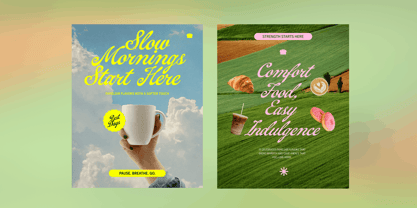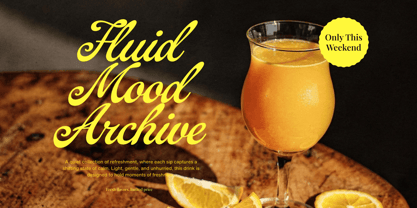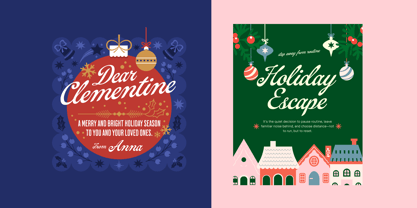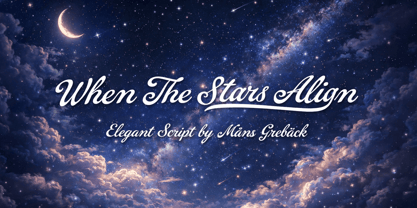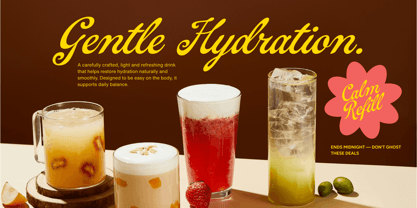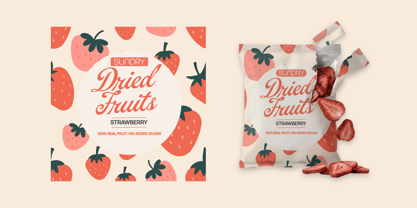
When The Stars Align
by Mans Greback
The When The Stars Align Font Family was designed by Måns Grebäck and published by Mans Greback. When The Stars Align contains 4 styles and family package options. More about this family
When The Stars Align is an elegant script with a calm, luminous presence. Its letterforms flow smoothly, with gentle contrast and carefully shaped curves that give the text a sense of balance and intention. The rhythm is unhurried, allowing words to breathe while still feeling connected and deliberate. Subtle swashes and soft joins add character without drawing attention away from the message. The overall impression is romantic and thoughtful, as if written under a clear night sky. It suits moments that call for warmth and sincerity, where the lettering should feel personal but refined, like a handwritten note saved for something meaningful. The font is built with advanced functionality and guaranteed top-notch quality, containing stylistic and contextual alternates, ligatures and more automatic and manual features; all to give you full control and customizability. It has extensive lingual support, covering all Latin-based languages, from North Europa to South Africa, from America to South-East Asia. It contains all characters and symbols you'll ever need, including all punctuation and numbers. Designed by Mans Greback, this font was created with a focus on flow and clarity. The goal was to capture a natural script feeling while keeping the shapes consistent and usable across different sizes and settings.